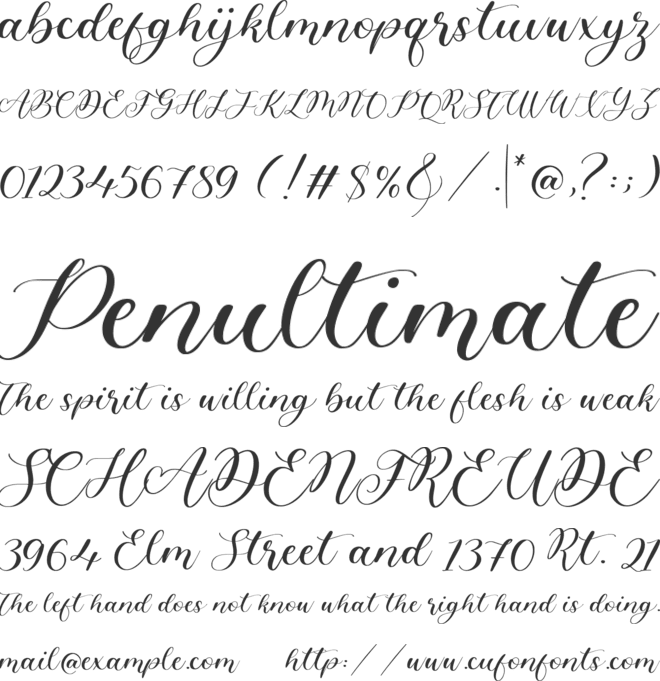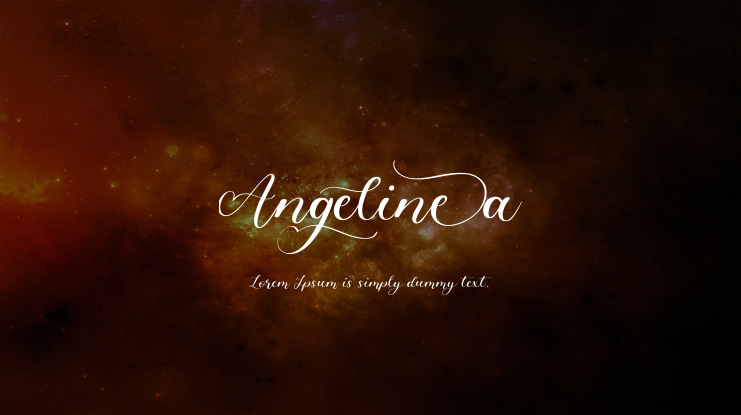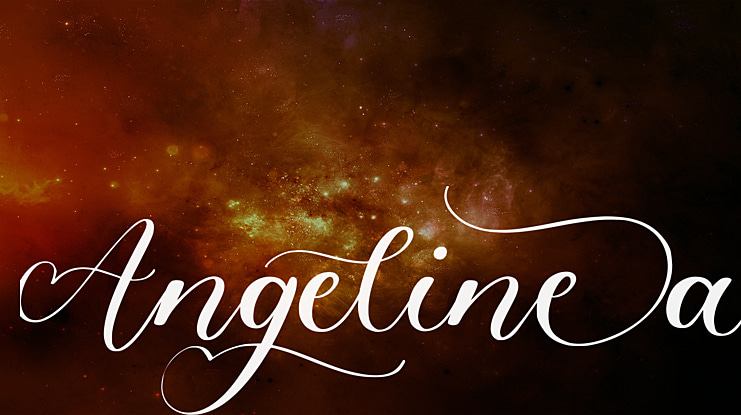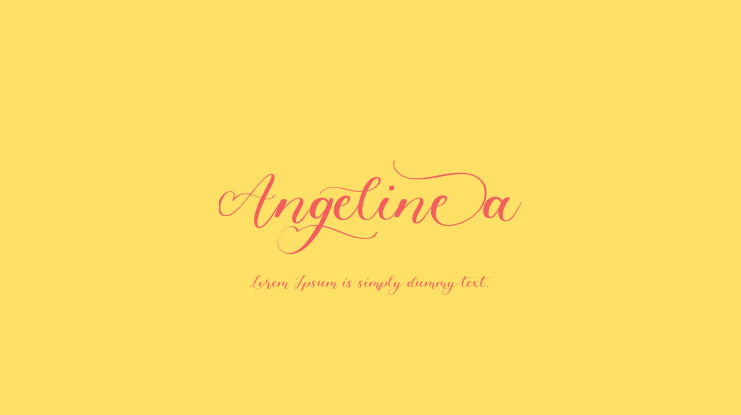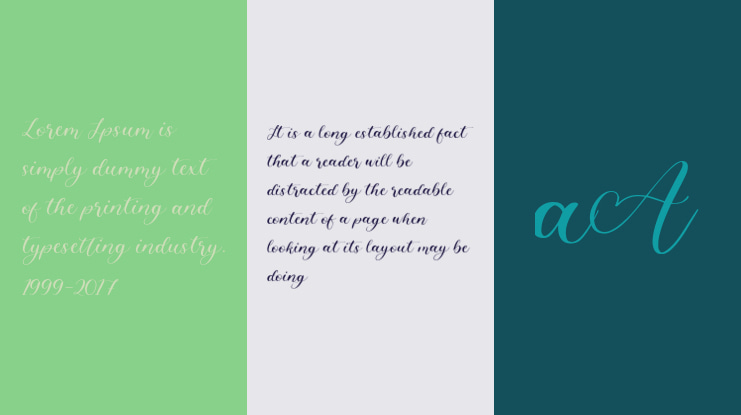
Angelinea Font
Introducing by Balpirick Studio.
Proudly Present, Angelinea Font.
Angelinea is an Elegant Calligraphy Font.
Angelinea is perfect for product packaging, branding project, megazine, social media, wedding, or just used to express words above the background.
Uppercase & Lowercase font Stylistic Alternates Ligatures Symbols & Punctuation OpenType Features.